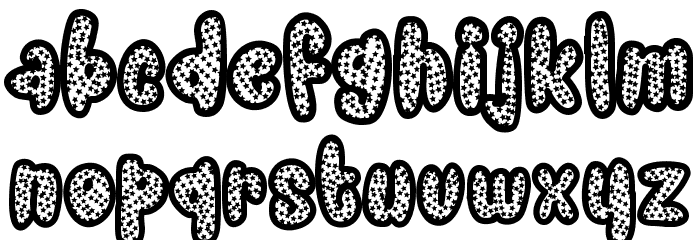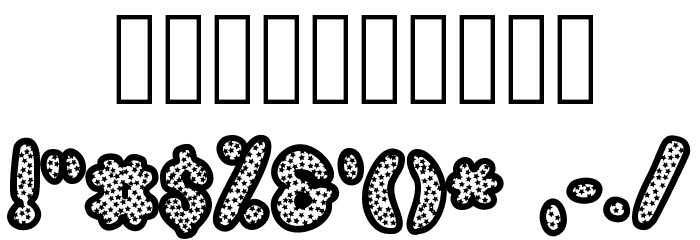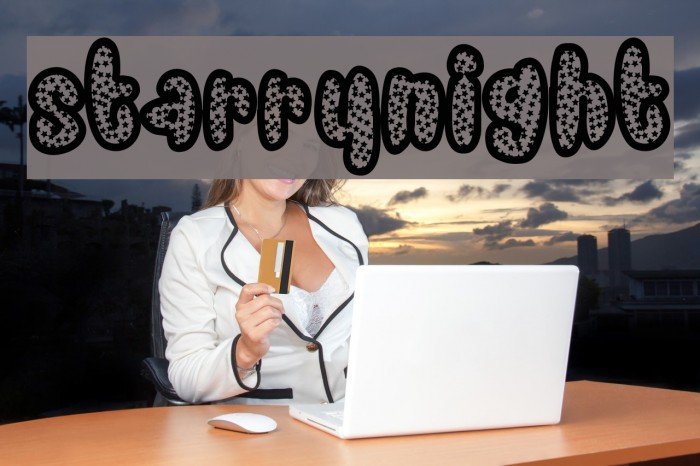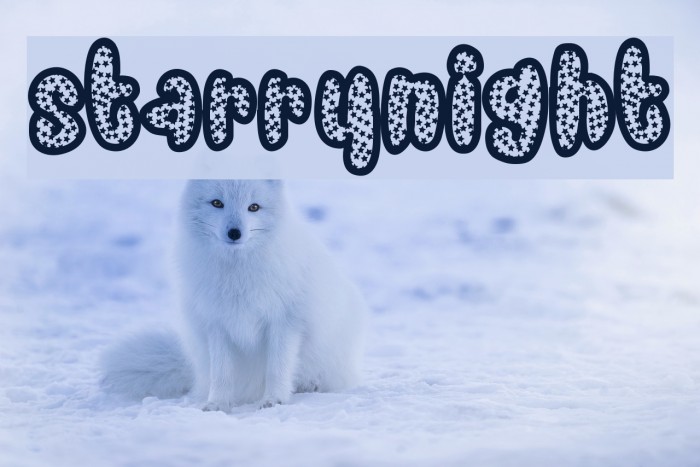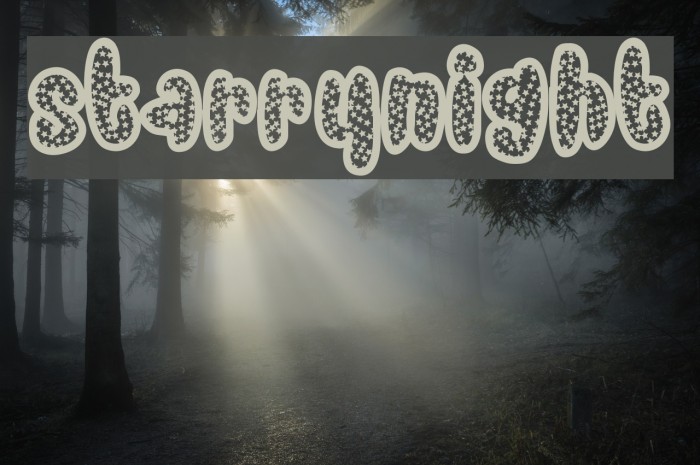
starrynight Font
This playful and whimsical font features a unique starry pattern within each character, giving it a lively and eye-catching appearance. The letters are bold and rounded, with a consistent black outline that enhances their visibility. The font's decorative style makes it ideal for creative projects that require a touch of fun and imagination. The consistent pattern across all characters ensures a cohesive look, while the boldness of the letters provides excellent readability. This font is perfect for projects that aim to capture attention and convey a sense of joy and creativity.
A playful, star-patterned font with bold, rounded characters and a decorative style.
- Proposed Projects: Ideal for children's book covers, party invitations, playful branding, and creative posters.